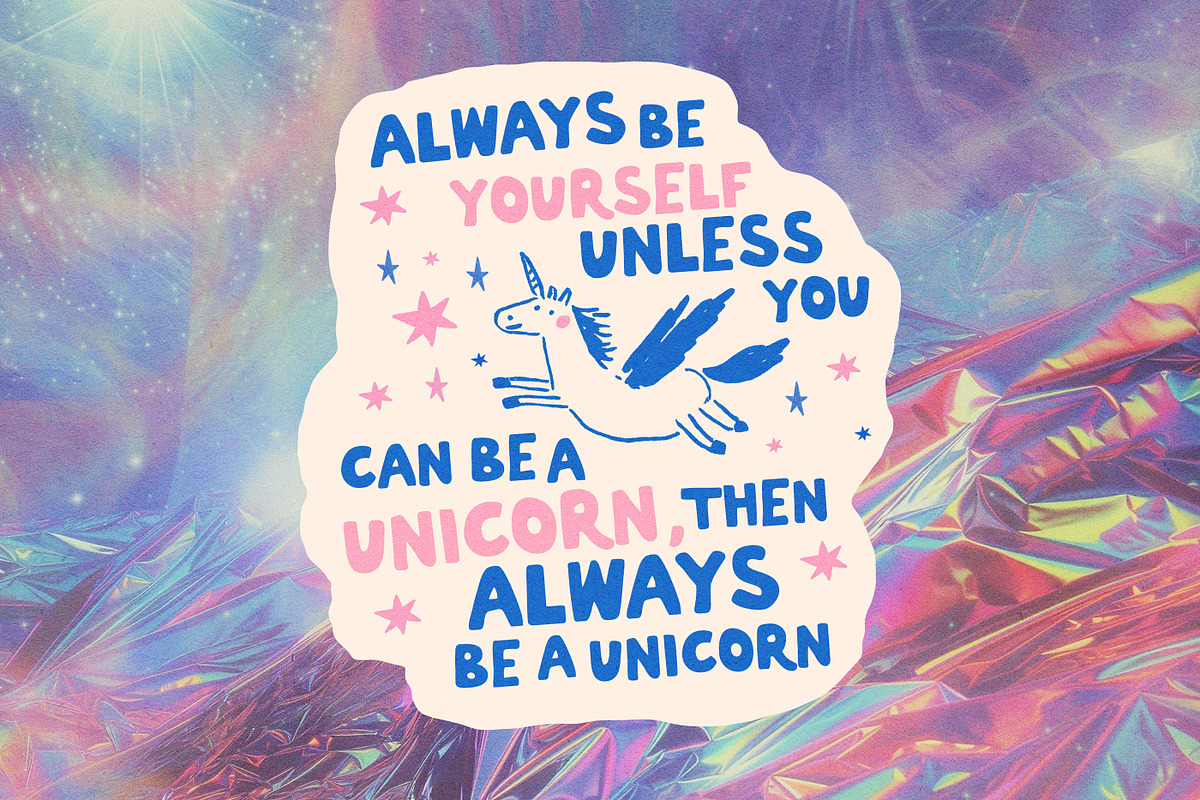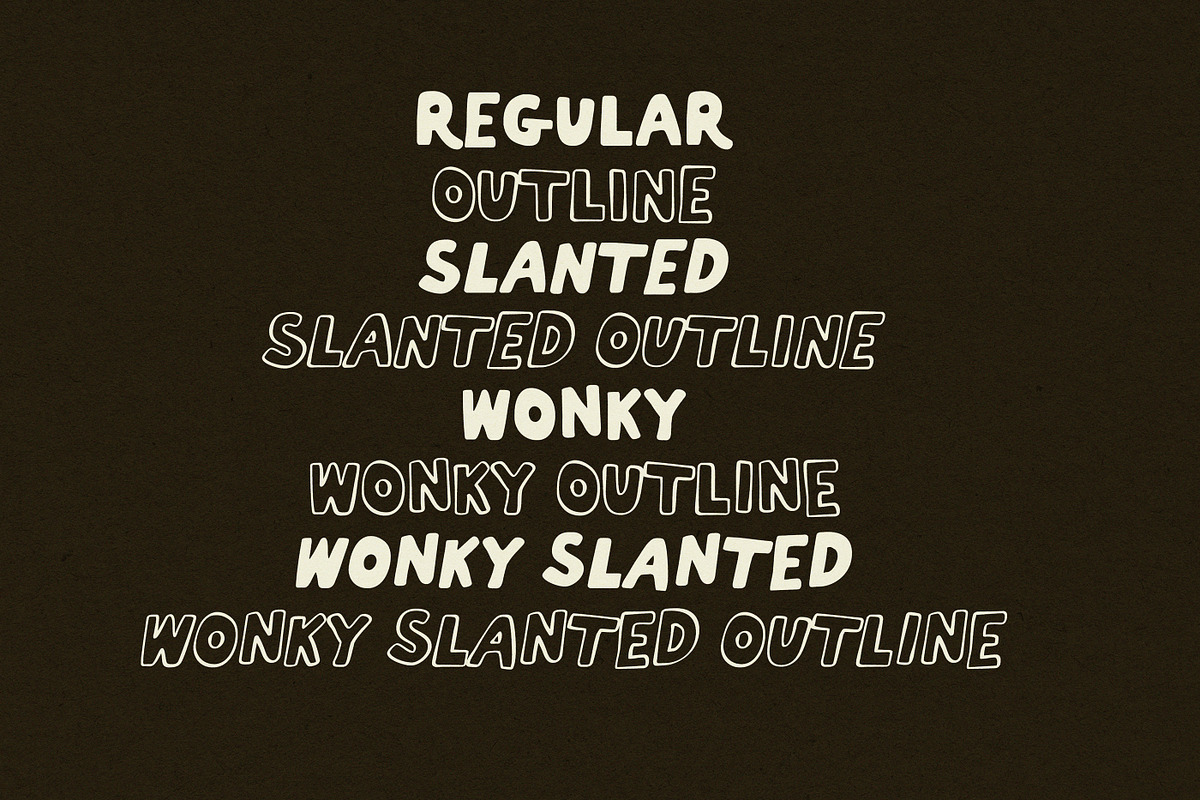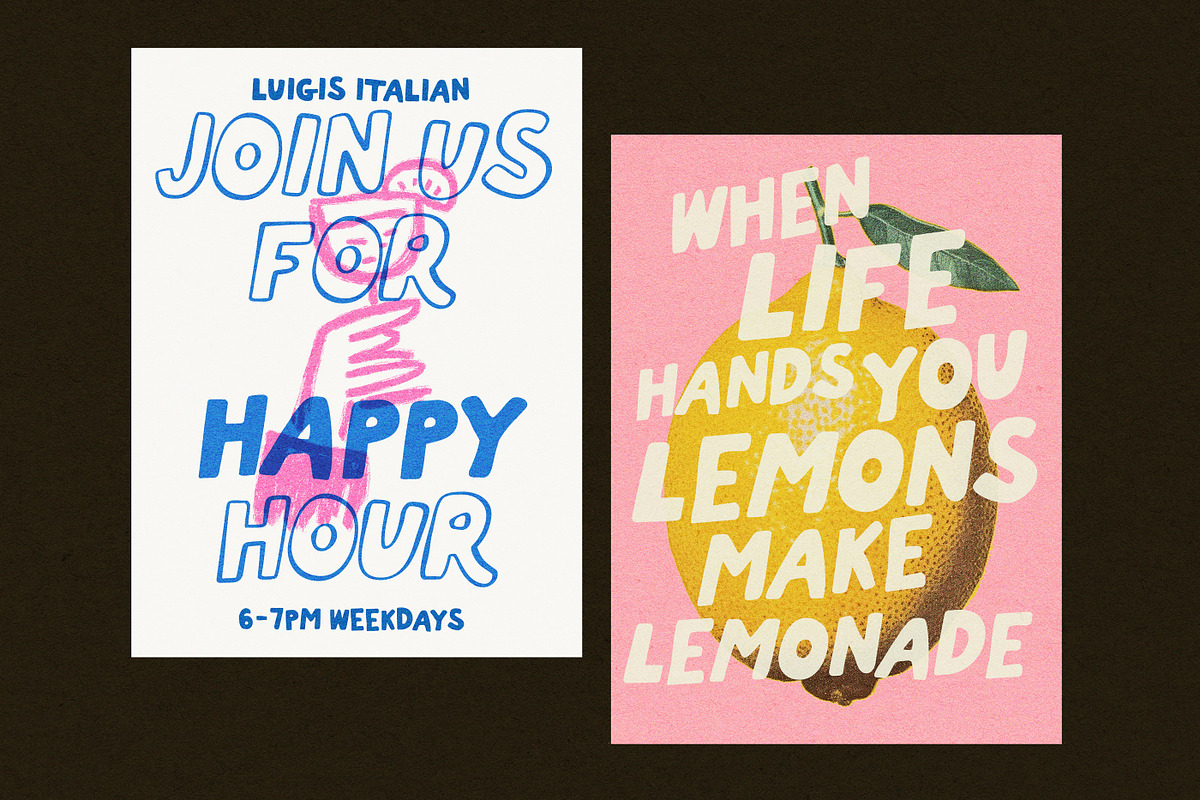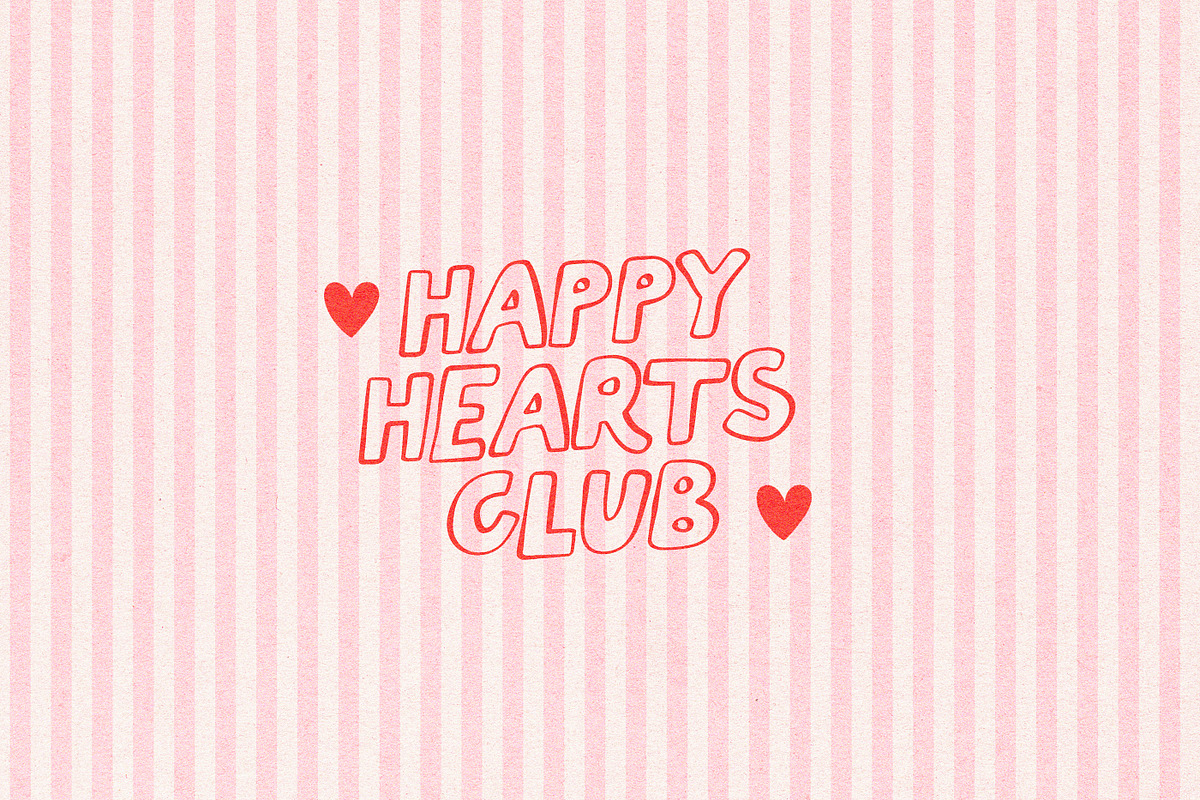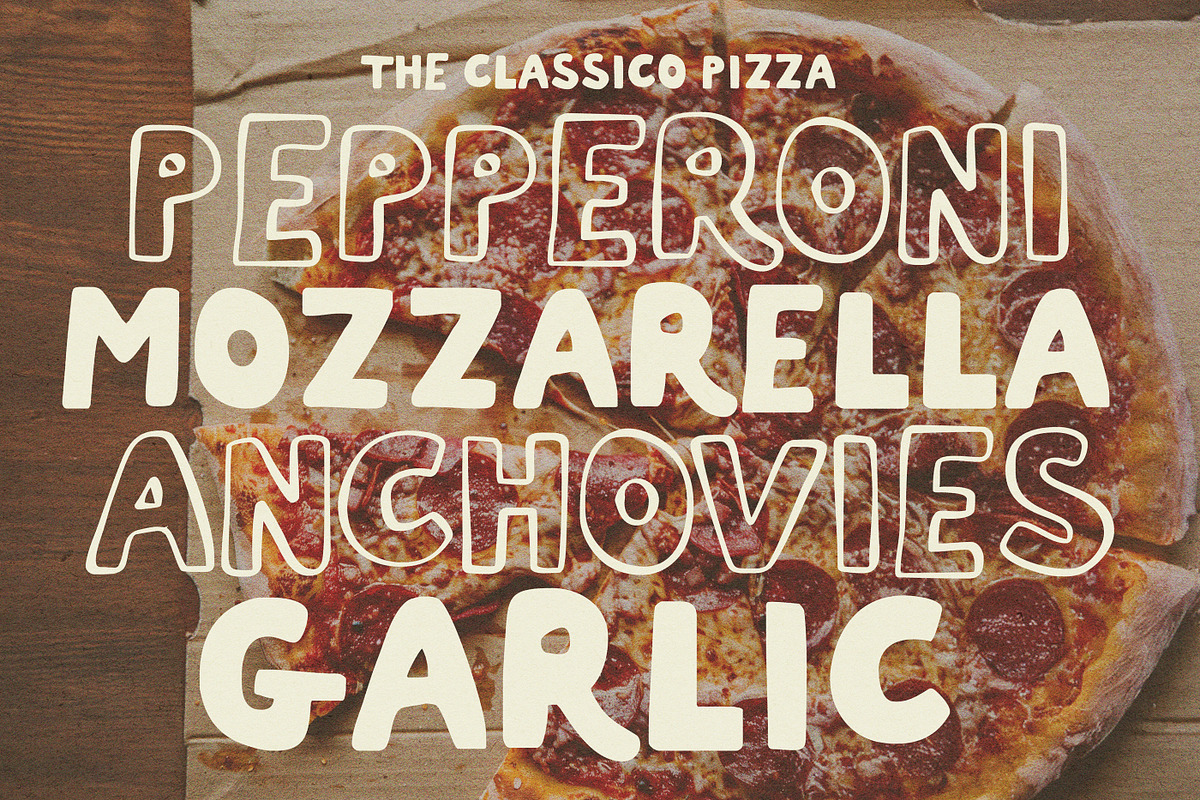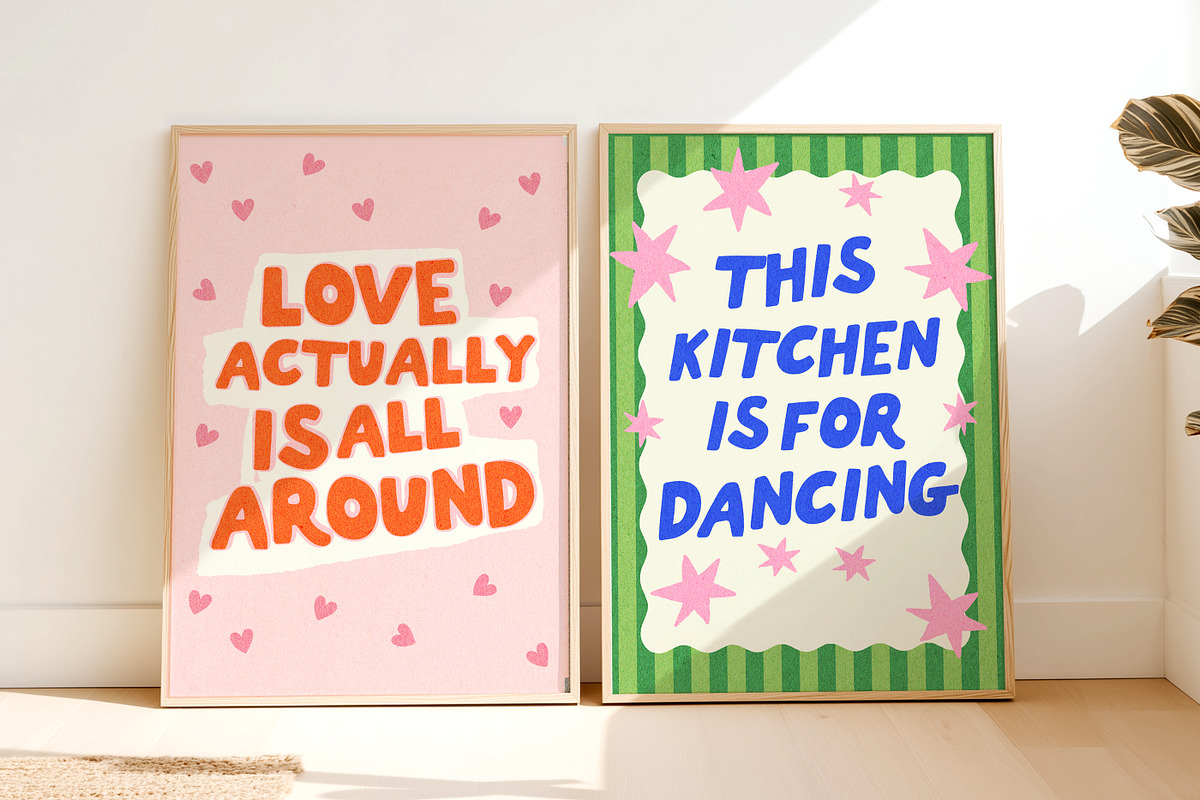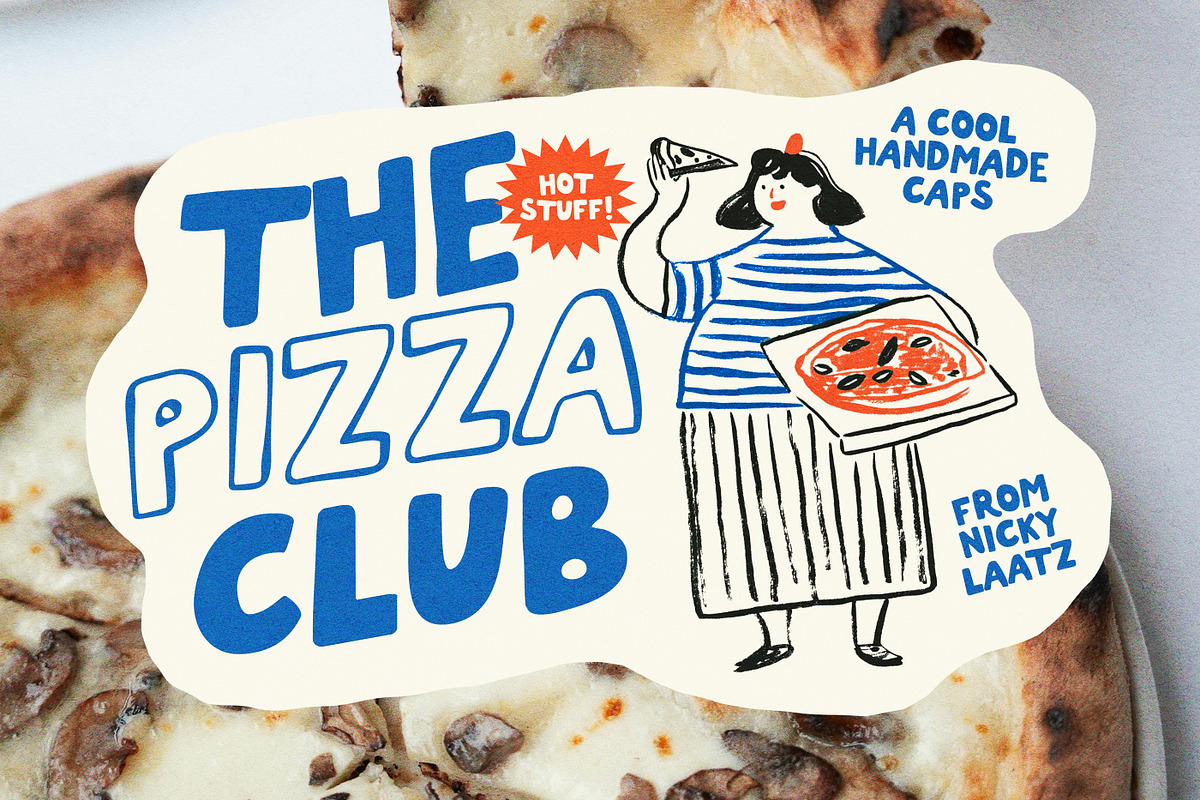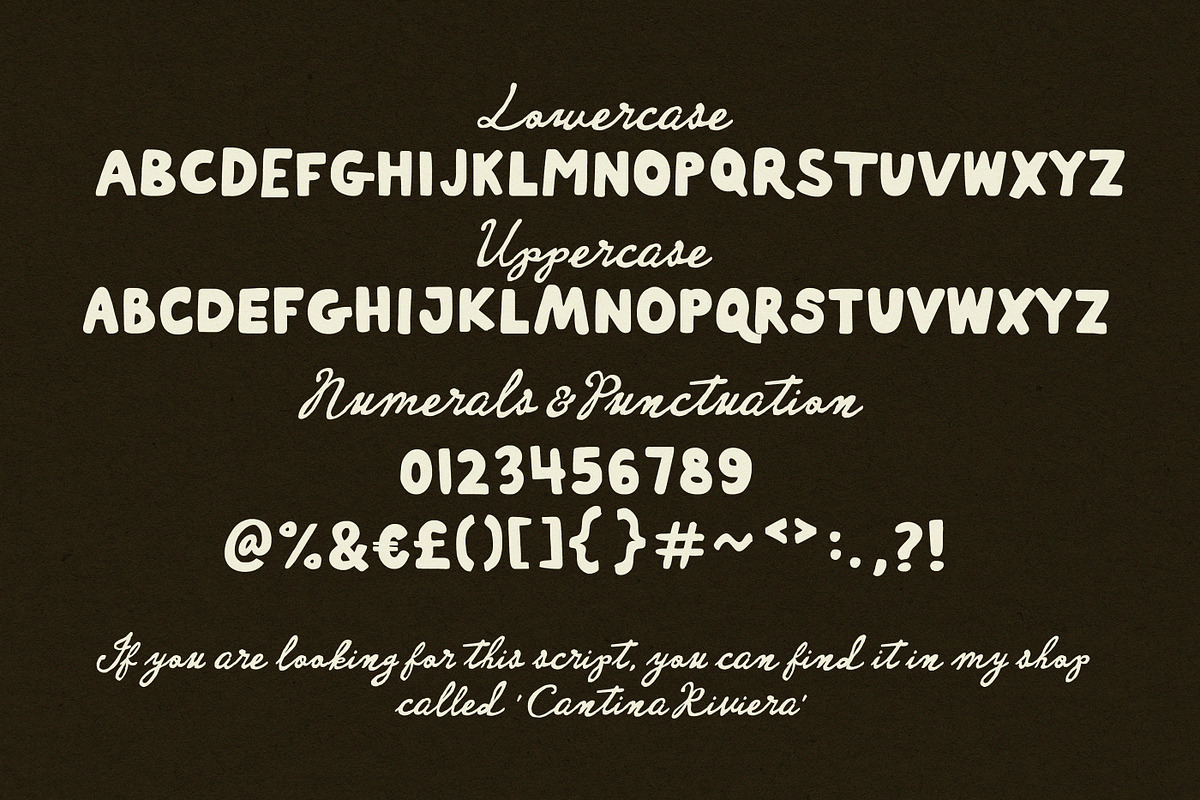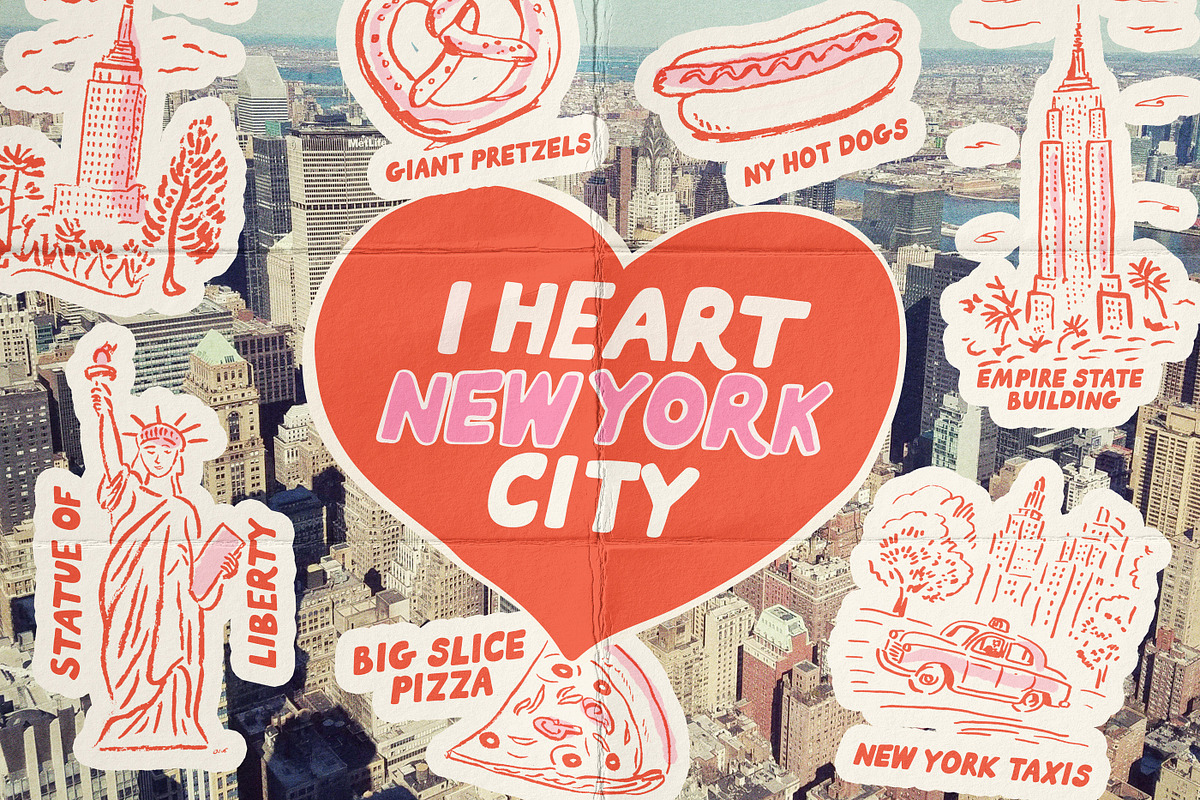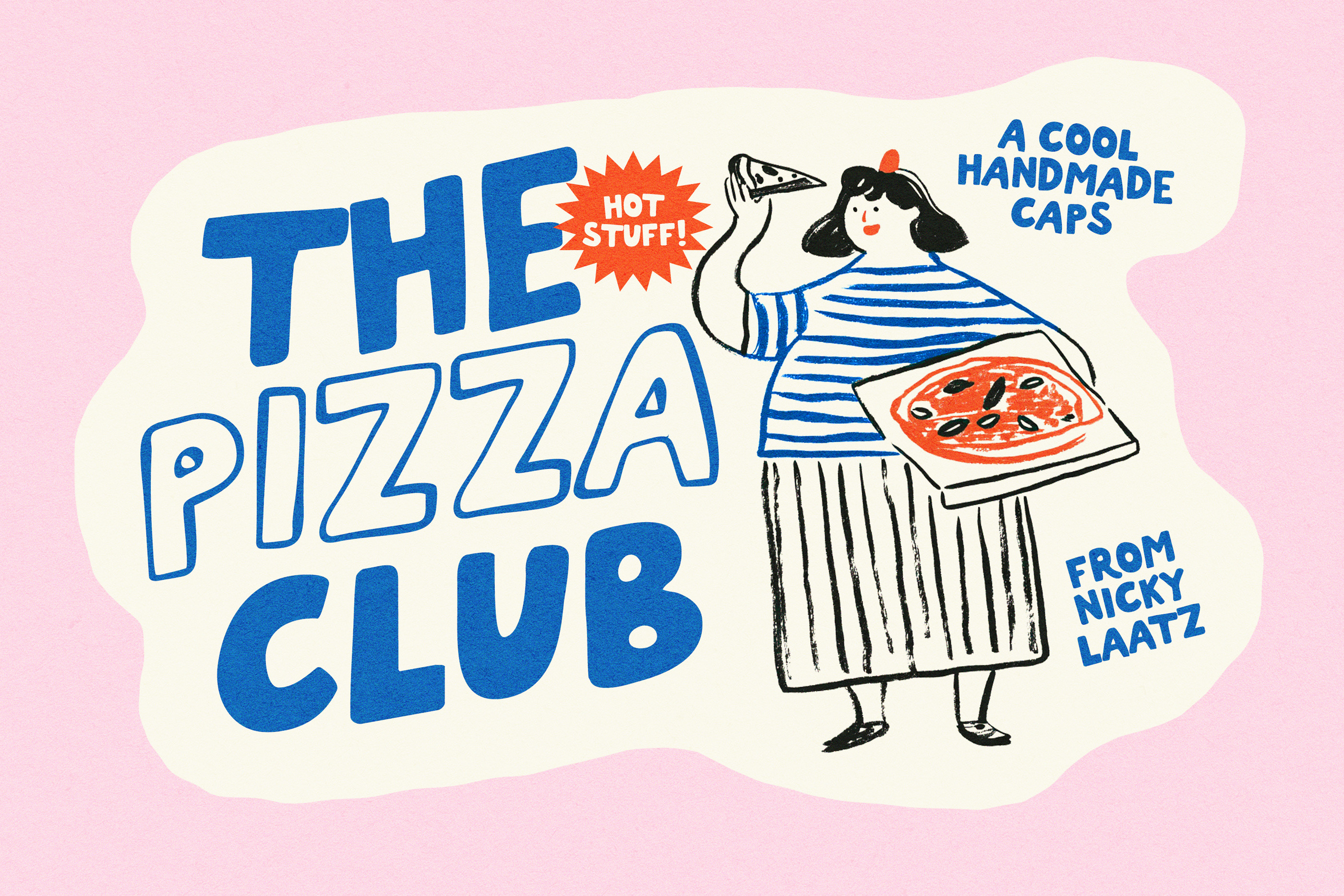
Pizza Club Font Family
Say hello to Pizza Club! A Cheeky Chunky handmade all-caps font! She's bold, she's playful , but with a sturdy confidence to hold her own across a plethora of different design styles! A balance between Retro charm and handmade modern cool, Pizza Club is ready to turn some heads :)
Perfect for bold typographic prints, funky branding, playful packaging, fun greeting cards, stand out merch, and so much more :)
The family consists of the main version, slanted versions, wonky versions ( where the letters are a little less goody two shoes), and inky outlined versions of each of the variants :)
You will find a different set of all caps in the uppercase slots compared to the lowercase slots - feel free to mix and match you make your design look more natural :)